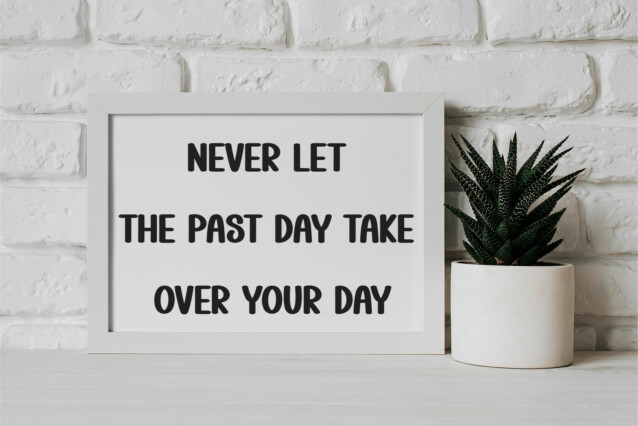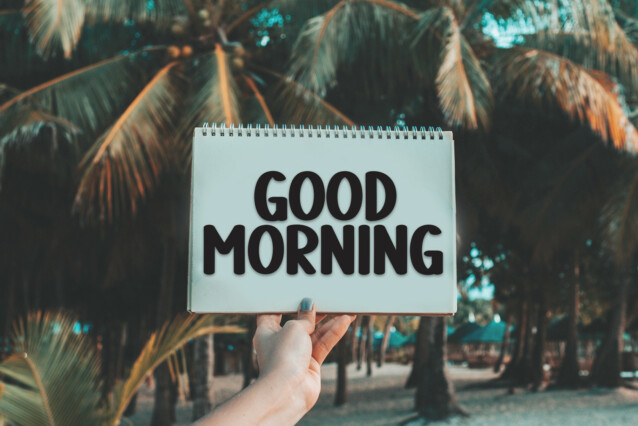
Sunshine Display Font
Sunshine Display Font is a lovely and timeless handwritten font. It is the best choice for creating eye catching logos, branding and quotes. Every letter has a unique and beautiful touch, which will make your design come alive!